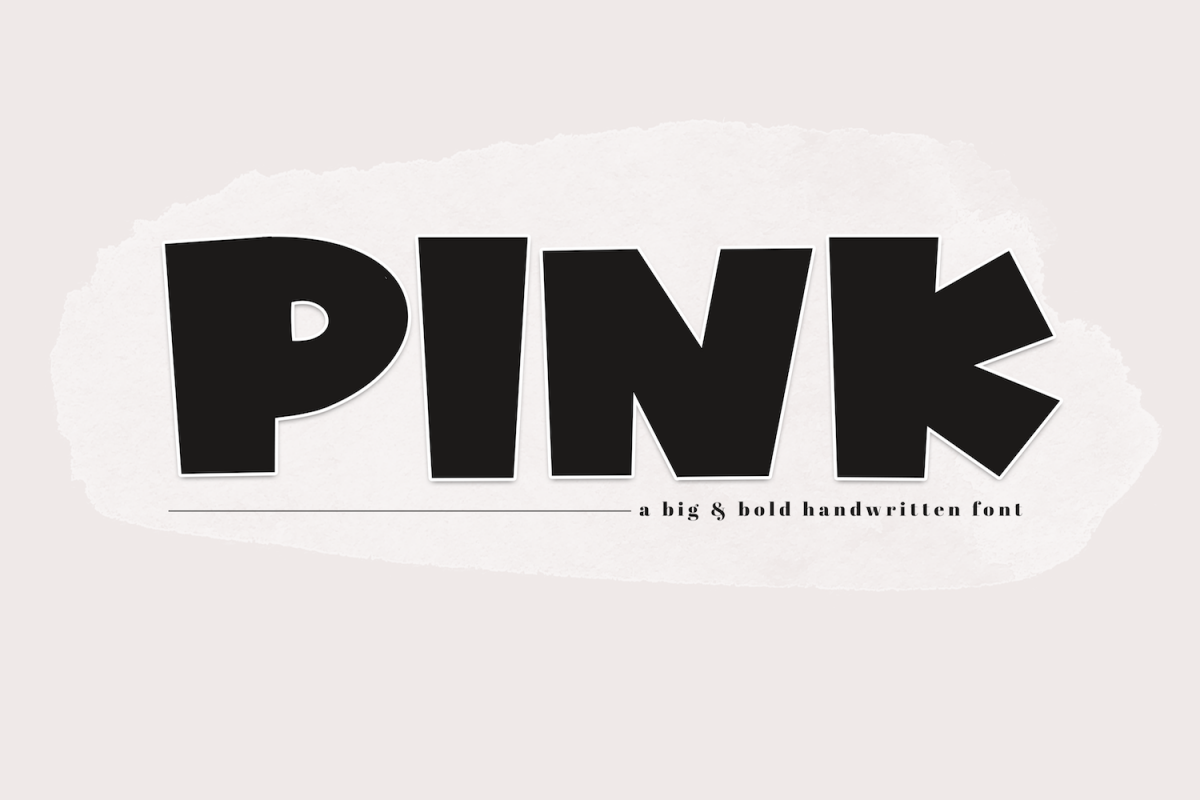
PINK - A Bold Handwritten Font
Pink
PINK is a fun handwritten font with bold letters.
*This is an all caps font*
This font is perfect for quotes, headings, designs, logos, invitations and more!
This font does include accent characters.